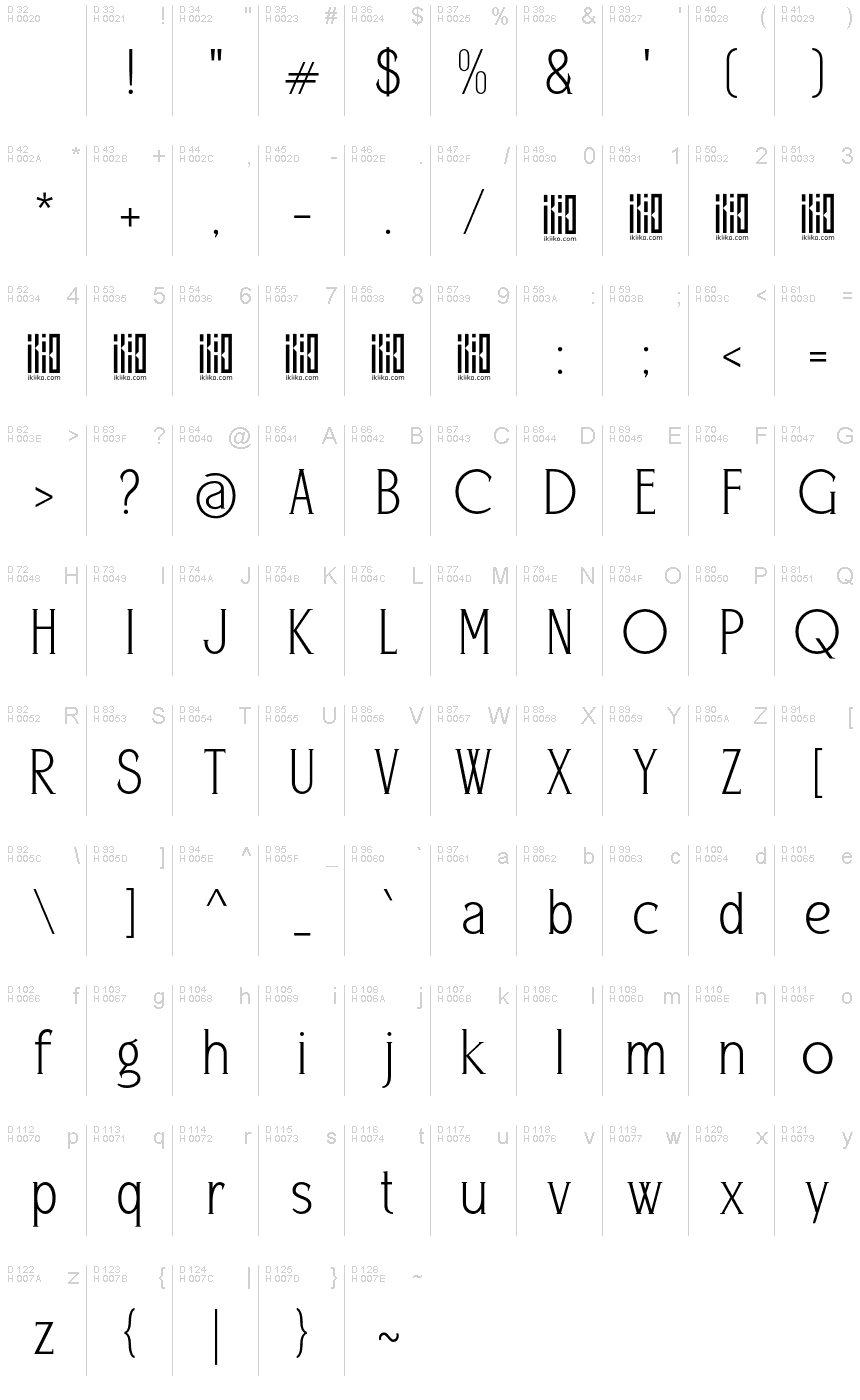
CLEOPATRAS ikiiko.com
Cleopatras, a refined creation by Ikiiko Type, stands out with its semi-light weight and semi-condensed width that harmonize to craft an elegant and modern serif font. Its slender serifs and subtle contrasts in stroke width exude a sophisticated charm, making it a versatile choice for editorial design, branding, and upscale marketing materials.
The distinctiveness of Cleopatras lies in its ability to blend contemporary style with classical undertones, resulting in a typeface that is both fresh and timeless. Its legible yet characterful letterforms offer designers the opportunity to convey messages with grace and clarity.
Whether employed for body text or as a striking headline font, Cleopatras possesses the unique qualities necessary to elevate any creative project. Its aesthetic appeal transcends the ordinary, inviting audiences into narratives woven with style and subtlety.